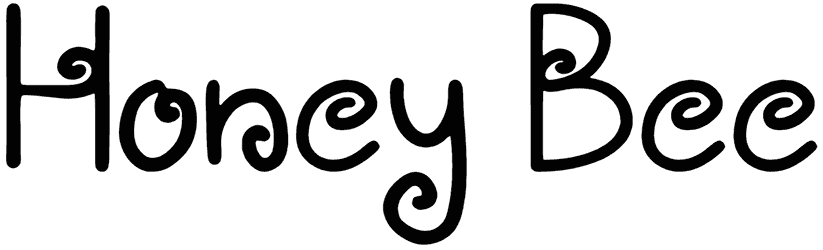
Honey Bee Font
Today’s introduction will either level up the cuteness in your words or make them more decorative; it all depends on your choice of color now! This font is called Honey Bee, and it is a ballpoint pen effect script font.
This honey font‘s characters have been styled with extra curly design elements, and you can use them for any friendly texts and headlines, cartoon titles, fashion blog banners, personal blogs, and birthday invitations.